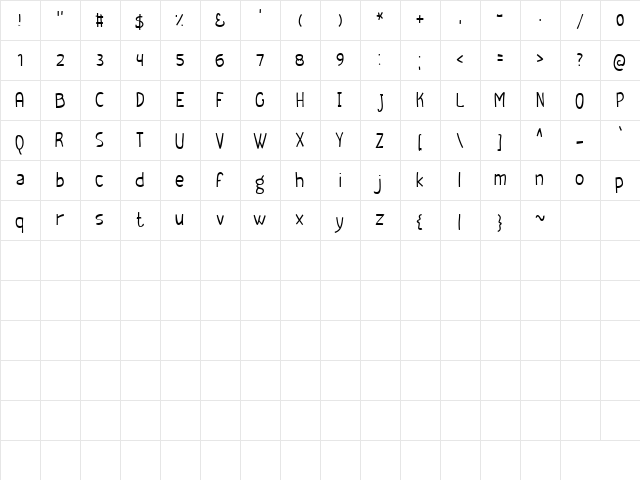
Geeker Thin
| Foundry | Meir Sadan |
| Designer | Meir Sadan |
Design Context for Geeker Typeface
Geeker offers clean, dependable letterforms without strong stylistic allegiance, making it a practical choice for designers who need flexibility. The delicate stroke weight brings airiness and refinement to layouts.